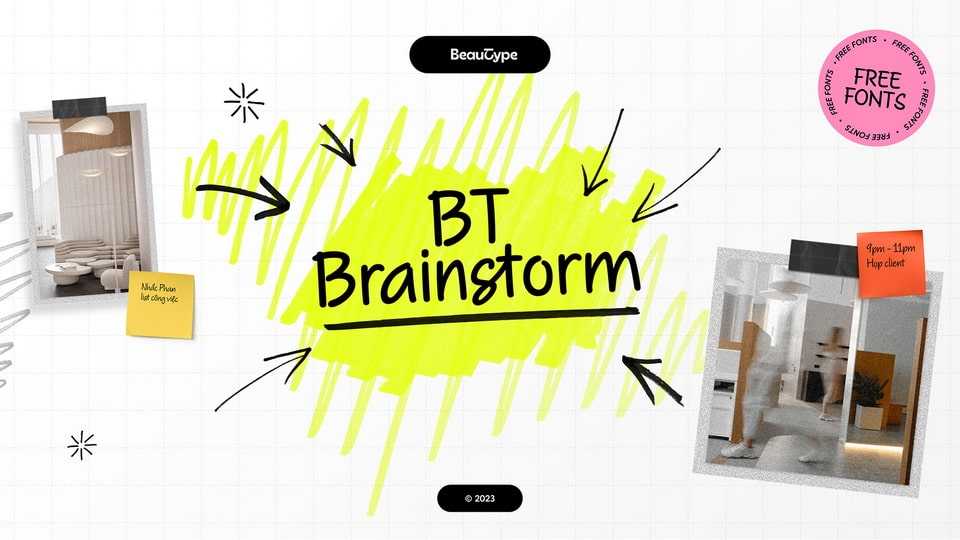
Download BT Brainstorm font, a script typeface featuring two styles: Marker and Rollerball. Its purpose is to emulate handwriting using two corresponding writing instruments, namely a marker pen and a rollerball pen.
Designer: BeauType Studio